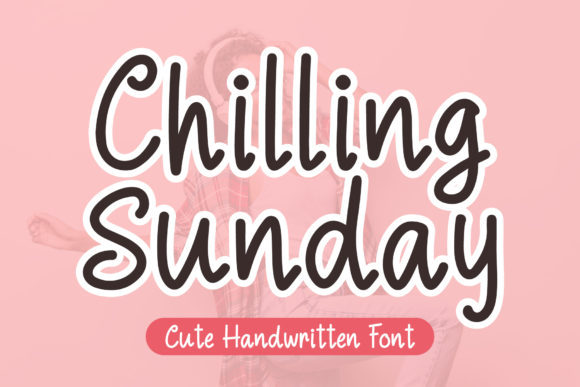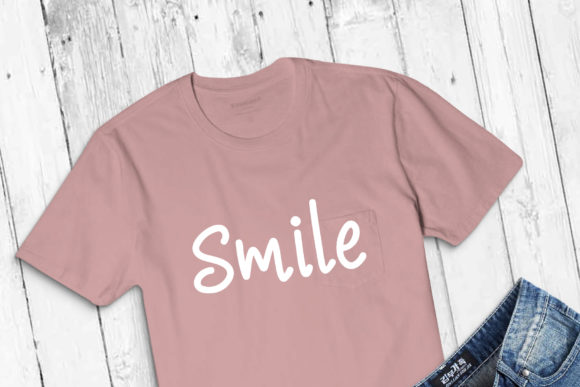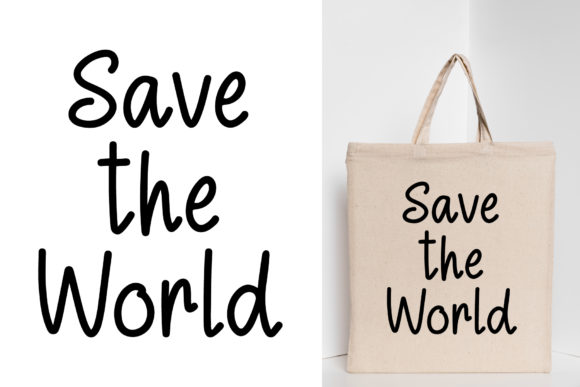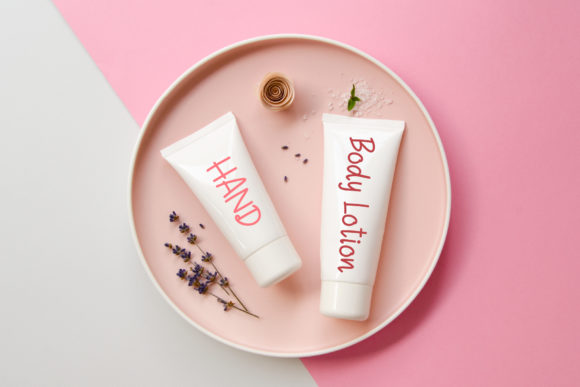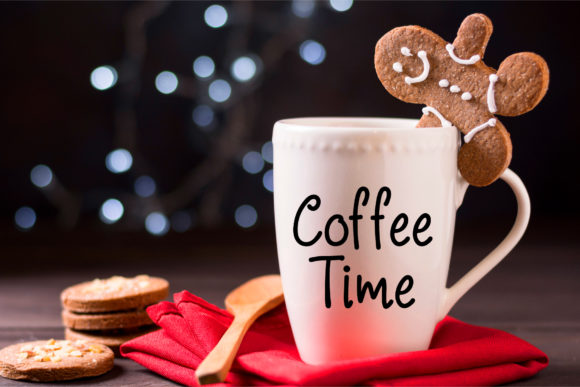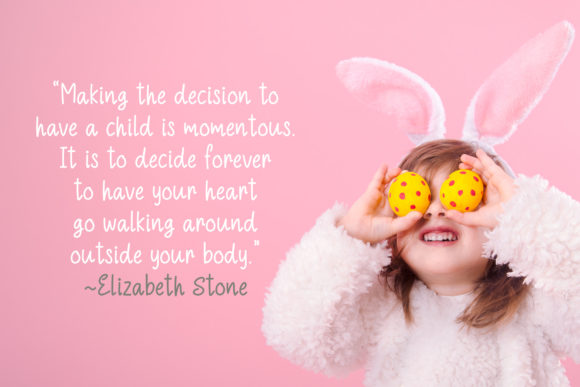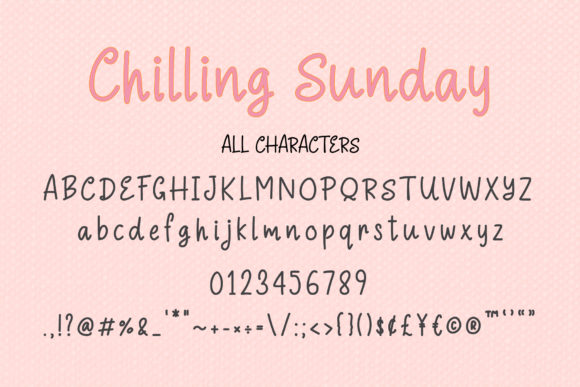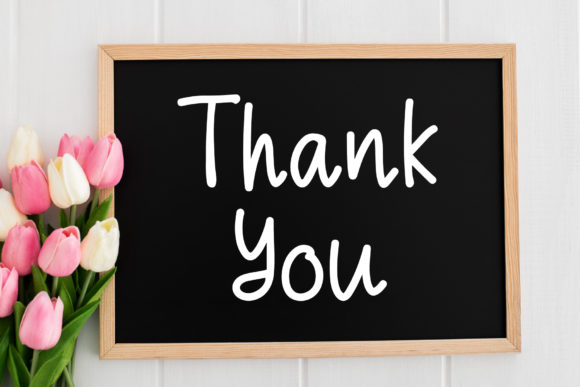
Chilling Sunday Font
About Chilling Sunday Font
Chilling Sunday is a cute and dainty handwritten font. Its playful and a little bit quirky, this font is the perfect fit for your social media posts, posters, cards and cute greeting cards.